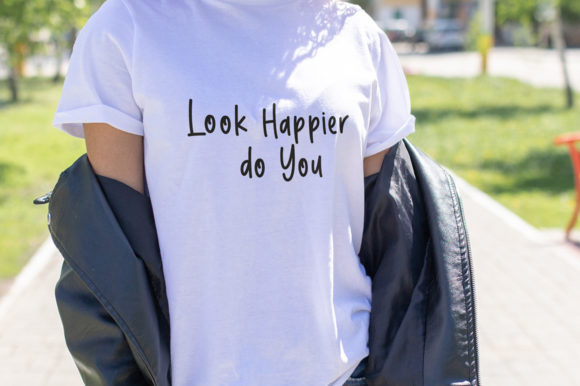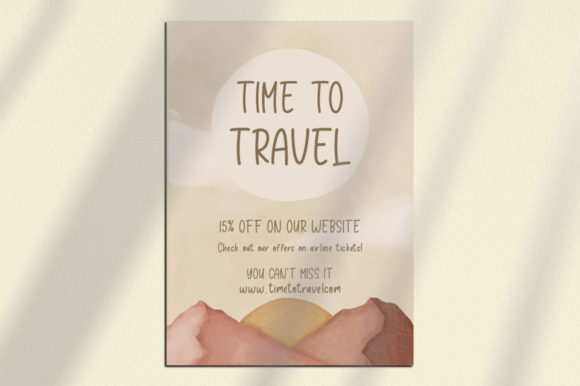
Pumpkin Spice Font
db-ku.com - Script & Handwritten -- Pumpkin Spice is a cute and playful handwritten font. No matter the topic, this font will be a lovely asset to your fonts’ library, as it has the potential to elevate any creation.